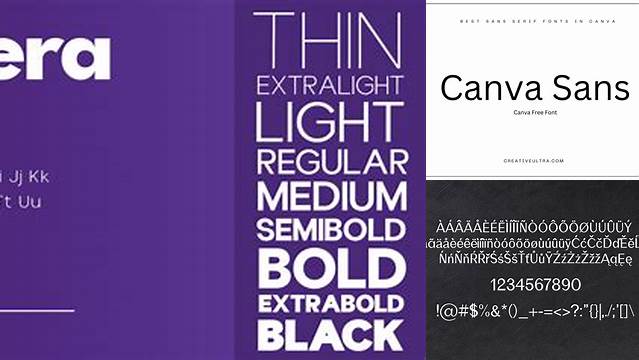
Free Sans Serif Fonts: TTF Downloads For Your Projects
Hey guys! Are you on the hunt for the perfect sans serif font to spice up your design projects? Look no further! In this ultimate guide, we're diving deep into the world of sans serif fonts, exploring their versatility, and showing you where to find some amazing free TTF downloads. Whether you're a seasoned designer or just starting out, this article has something for everyone. We'll cover everything from the history and characteristics of sans serif fonts to the best places to download them for free. So, let's jump right in and discover the world of clean and modern typography!
What are Sans Serif Fonts?
Let's kick things off with the basics. What exactly are sans serif fonts? The term "sans serif" comes from the French word "sans, meaning "without," and "serif," which refers to the small decorative strokes or âfeetâ that you see at the end of letter strokes in some fonts (like Times New Roman). So, sans serif fonts are essentially fonts without these extra details. This gives them a cleaner, more modern, and often more minimalist appearance.
Key Characteristics of Sans Serif Fonts
- Clean Lines: The most defining characteristic of sans serif fonts is their clean, straightforward lines. They lack the serifs that can sometimes make text appear cluttered, especially at smaller sizes.
- Modern and Minimalist: Sans serif fonts are often associated with a modern and minimalist aesthetic. Theyâre frequently used in contemporary designs, websites, and branding materials.
- Versatile: Don't let their simplicity fool you; sans serif fonts are incredibly versatile. They can be used in a wide range of applications, from headlines and body text to logos and UI design.
- Readability: Sans serif fonts are generally considered highly readable, especially in digital formats. Their clean lines make them easy on the eyes, even in long blocks of text.
- Variety: There's a vast array of sans serif fonts available, each with its unique personality. From geometric fonts like Futura to humanist fonts like Helvetica, thereâs a sans serif font for every project.
History and Evolution of Sans Serif Fonts
Interestingly, sans serif fonts are a relatively recent invention in the history of typography. While serif fonts have been around for centuries, sans serif fonts only emerged in the early 19th century. One of the earliest examples was a font called Egyptian, which debuted in 1816. These early sans serif fonts were often called "grotesque" or "gothic" due to their stark, unadorned appearance, which was quite a departure from the traditional serif styles.
Over time, sans serif fonts evolved and gained popularity, especially during the modernist movement in the 20th century. Designers like Paul Renner (who created Futura) and Max Miedinger (the creator of Helvetica) played a crucial role in shaping the sans serif landscape. These fonts became synonymous with modern design, and their influence can still be seen today.
Why Choose Sans Serif Fonts?
So, why should you consider using a sans serif font in your next project? Here are a few compelling reasons:
- Modern Look: If youâre aiming for a contemporary and clean aesthetic, sans serif fonts are an excellent choice. They convey a sense of sophistication and simplicity.
- Digital Readability: Sans serif fonts shine on screens. Their clean lines make them easy to read on websites, apps, and other digital platforms.
- Versatility: As mentioned earlier, sans serif fonts can adapt to a wide range of design needs. Whether youâre designing a logo, a website, or a brochure, thereâs likely a sans serif font that fits the bill.
- Legibility at Small Sizes: Sans serif fonts often maintain their legibility even at small sizes, making them ideal for body text, captions, and other instances where readability is crucial.
Where to Find Free Sans Serif Fonts (TTF Downloads)
Top Websites for Free Font Downloads
- Google Fonts: Google Fonts is a treasure trove of free, open-source fonts. You can easily browse, preview, and download fonts directly from their website. The best part? All fonts on Google Fonts are free for both personal and commercial use. Popular sans serif options include Roboto, Open Sans, and Montserrat.
- Font Squirrel: Font Squirrel is another fantastic resource for free fonts. They carefully curate their collection and ensure that all fonts are legally available for commercial use. You'll find a wide variety of sans serif fonts, from classic styles to more unique and experimental designs.
- DaFont: DaFont is a massive font archive with a wide range of styles, including many free sans serif options. However, it's essential to check the license for each font, as they vary. Some are free for personal use only, while others are available for commercial projects as well.
Whether you're working on a website, a logo, or a print project, the right sans serif font can elevate your design and help you communicate your message effectively. So, go ahead, explore the world of sans serif typography, and unleash your creative potential!